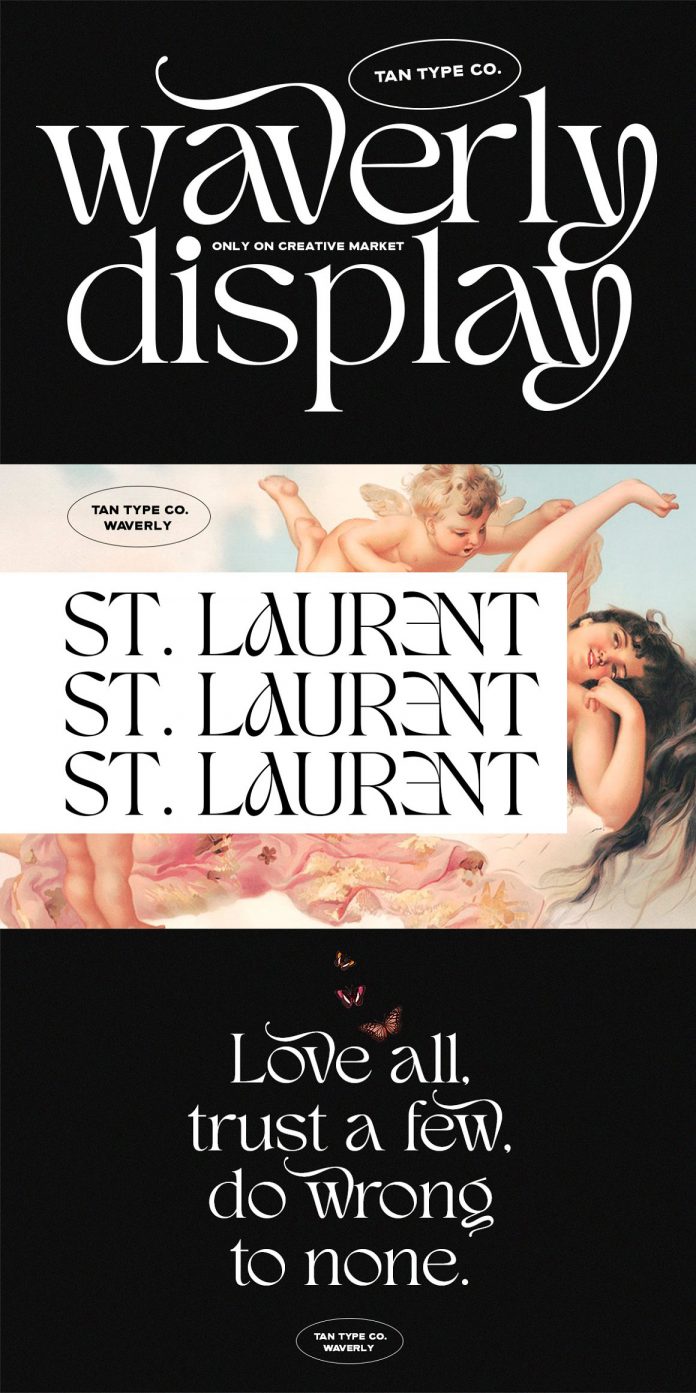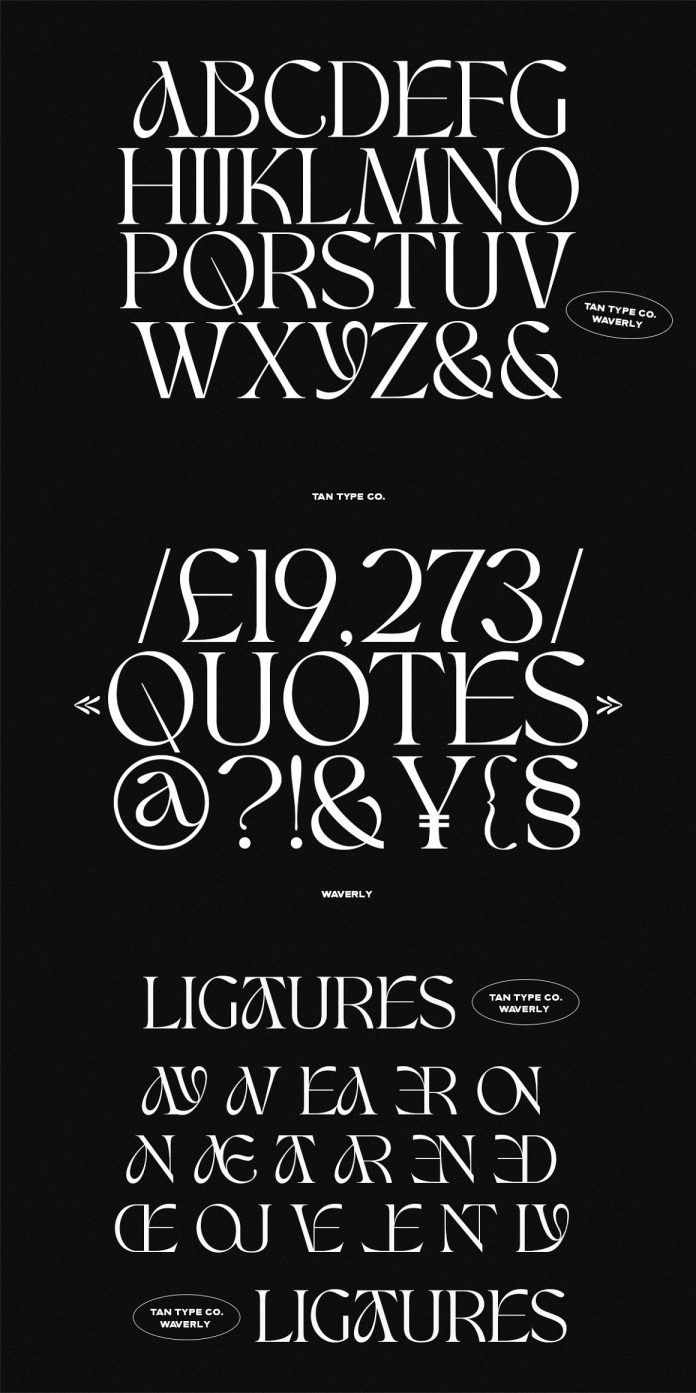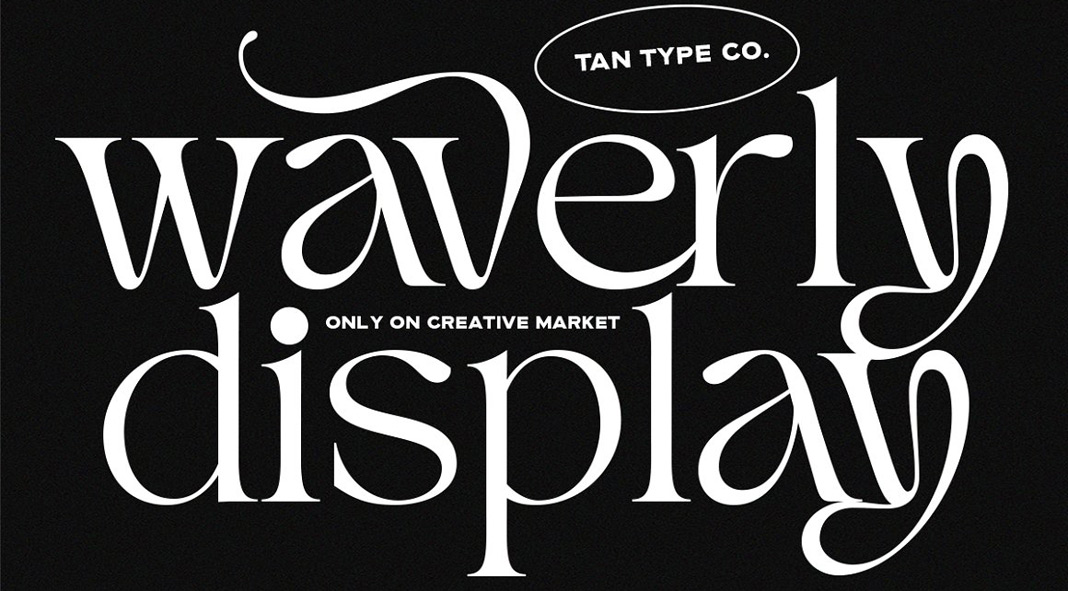
TAN WAVERLY font, an elegant serif typeface that comes with plenty of ligatures and stylish glyphs.
Foundry and design studio TanType is well known for creating super stylish typefaces that offer an elegant yet unique and experimental look. TAN WAVERLY is no exception. Packed with lots of glyphs and stylish ligatures, the TAN WAVERLY font is an elegant display serif typeface with a unique appearance. It supports multiple languages and can be used for a wide range of typographic work including print and web projects. Just click on the following link to learn more about all its features.